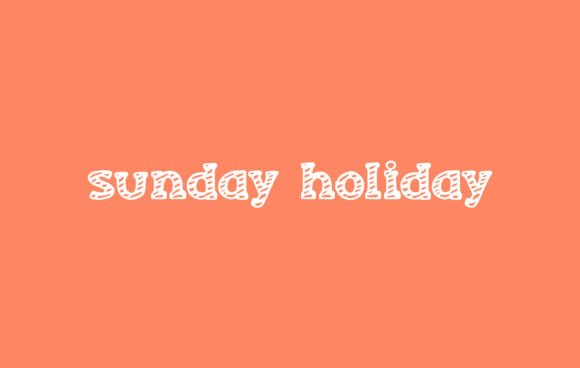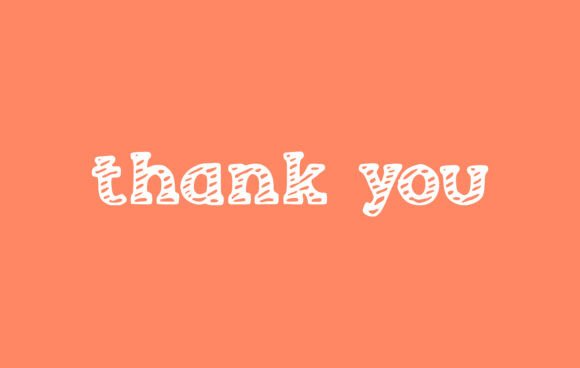
Introduction to Pheasant Font
Have you ever been in the midst of a creative project, staring at a blank canvas, and suddenly a spark of inspiration hits you? It’s that moment when everything comes together, and you know exactly what you want to create. For designers, this feeling is a familiar one, and the right design resource can make all the difference. That’s where the Pheasant Font comes in – a timeless and beautiful font that can elevate your designs to the next level.
Whether you’re working on a logo, branding, or a quote, the Pheasant Font is an excellent choice. Its unique and elegant touch will make your design come alive, and with its transparent background, you can easily combine it with other design elements. As a high-quality design resource, the Pheasant Font is a valuable addition to any designer’s toolkit, and the best part? It’s available for free download, making it accessible to designers of all levels.
Key Features of Pheasant Font
- Pheasant Font is a high-quality design resource ideal for creative projects.
- It comes with a transparent background, making it easy to integrate into various designs.
- Pheasant Font has a unique, elegant style that can add a touch of sophistication to any design.
- Pheasant Font is available in high resolution, suitable for use in both print and digital designs.
Honest Review: Pheasant Font
As a designer, I’m always on the lookout for high-quality design resources to enhance my creative projects. Recently, I stumbled upon the Pheasant Font, and I’m excited to share my thoughts on this free download.
What works well with the Pheasant Font is its unique and elegant design. It’s perfect for adding a touch of sophistication to your designs, especially when paired with a transparent background. ✨ The font’s versatility makes it suitable for a wide range of creative projects, from branding to editorial content.
The Pheasant Font comes in various weights, making it easy to achieve the desired level of contrast in your designs. It’s also fully scalable, allowing you to use it in various contexts without compromising on quality. ✨
However, there are some limitations to consider. ⚠️ For instance, the font may not be ideal for projects that require a bold, attention-grabbing effect. Additionally, some users may find the font’s design too ornate for certain design applications.
Overall, I’m impressed with the Pheasant Font’s quality and design. It’s a great addition to any designer’s toolkit, and I’m excited to see how it can enhance my future creative projects.
- Unique and elegant design
- Perfect for adding sophistication to designs
- Highly versatile
- Fully scalable
Tips for Getting the Most Out of Pheasant Font
To get the most out of Pheasant Font, use it with a transparent background to create a seamless design. You can also experiment with different font sizes and colors to add visual interest to your design.
Common Use Cases for Pheasant Font
Pheasant Font is commonly used in branding, marketing materials, and digital designs. Its elegant and sophisticated design makes it perfect for creating a professional look and feel. You can also use it in print designs, such as business cards and brochures.